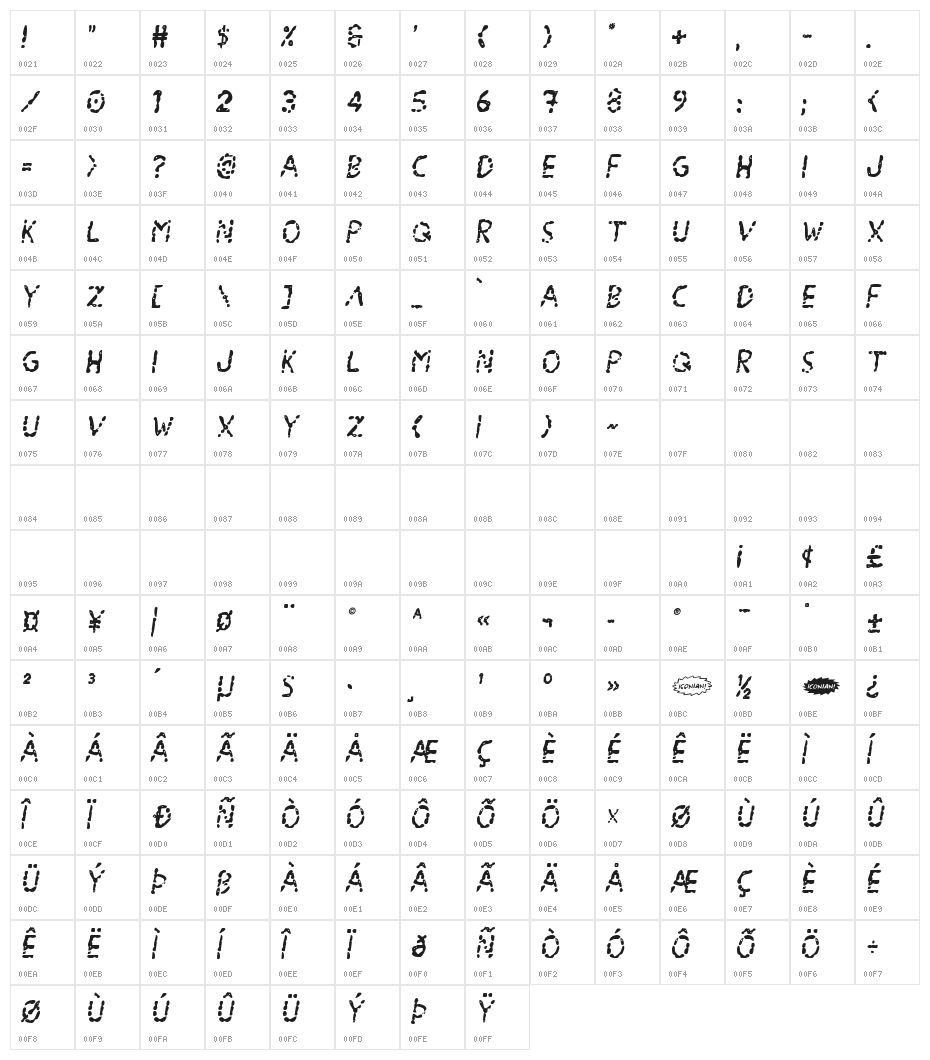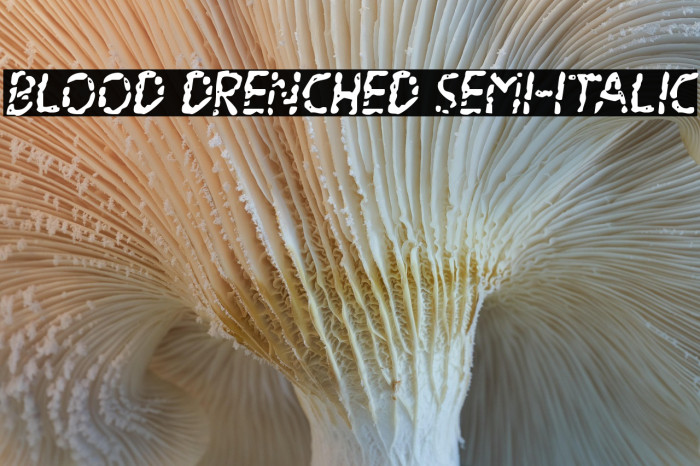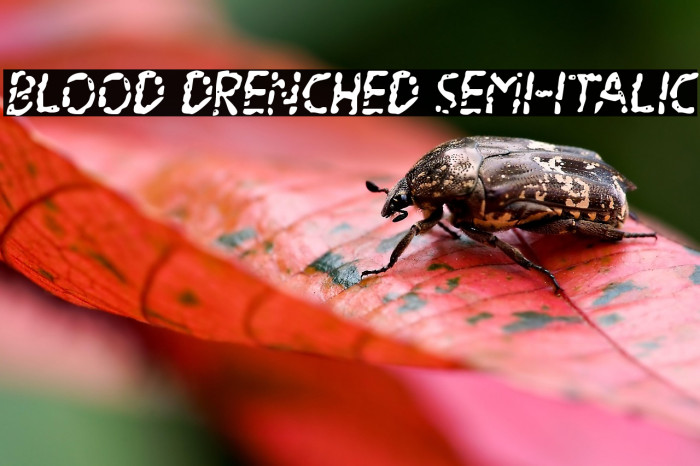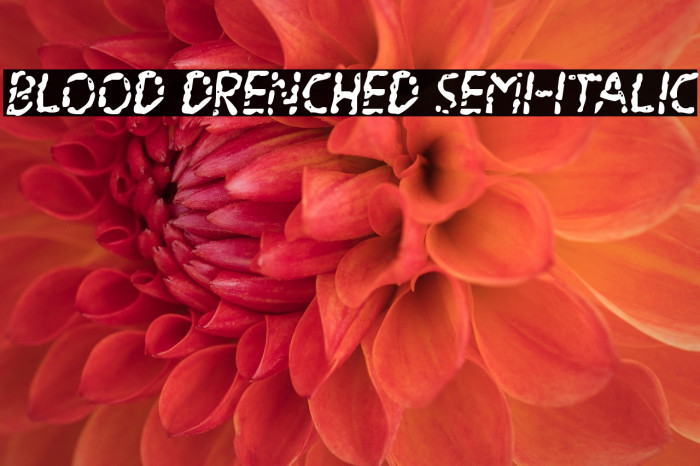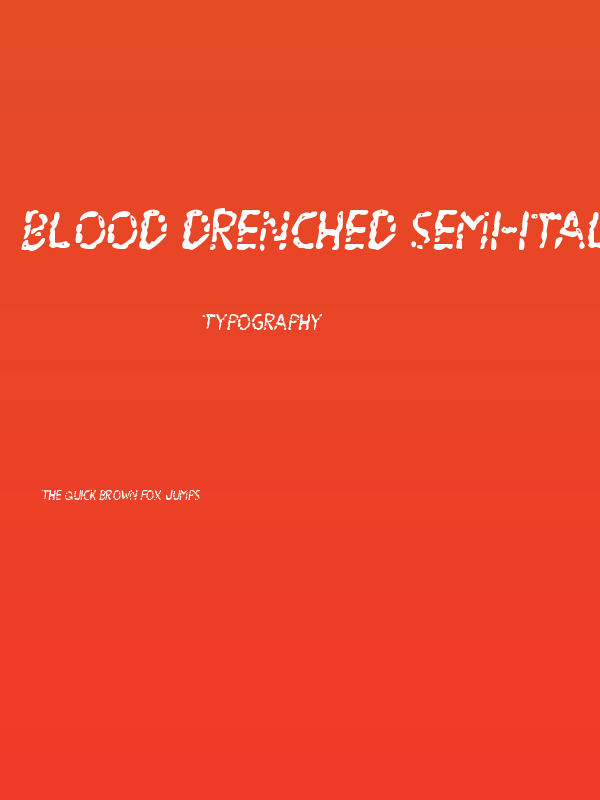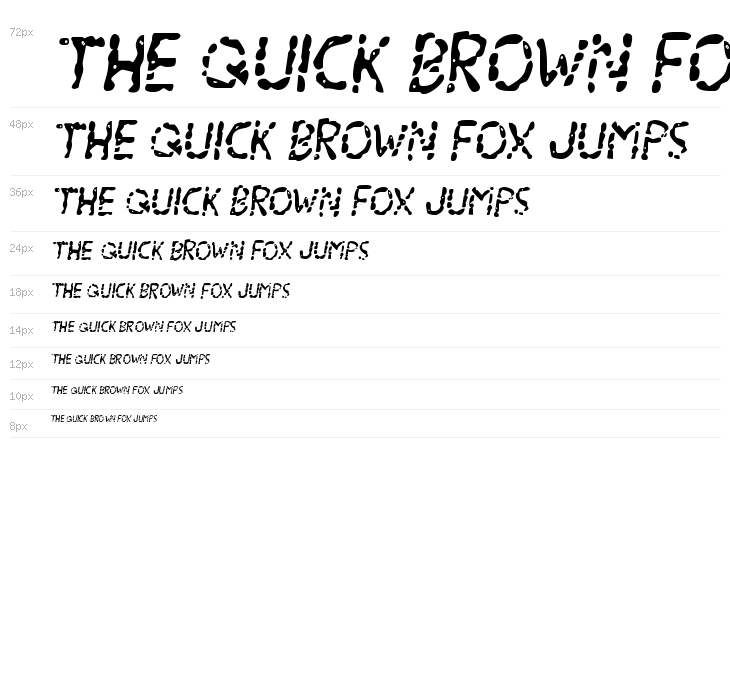
Blood Drenched Semi-Italic Font
Blood Drenched Semi-Italic Description
This font features a unique, blood-splattered aesthetic with semi-italicized characters. The design is characterized by irregular, organic shapes that mimic the appearance of dripping or splattered liquid, creating a dramatic and intense visual impact. The uppercase and lowercase letters maintain a consistent style, with each character appearing as if it has been formed from droplets. The numbers and special characters follow the same theme, ensuring a cohesive look across all elements. This font is ideal for projects that require a bold, horror-themed or edgy appearance, making it perfect for Halloween designs, horror movie posters, or themed event invitations.
Use CaseLogos, Posters, Themed Events
Proposed ProjectsIdeal for horror movie posters, Halloween event invitations, themed merchandise, and edgy graphic designs.